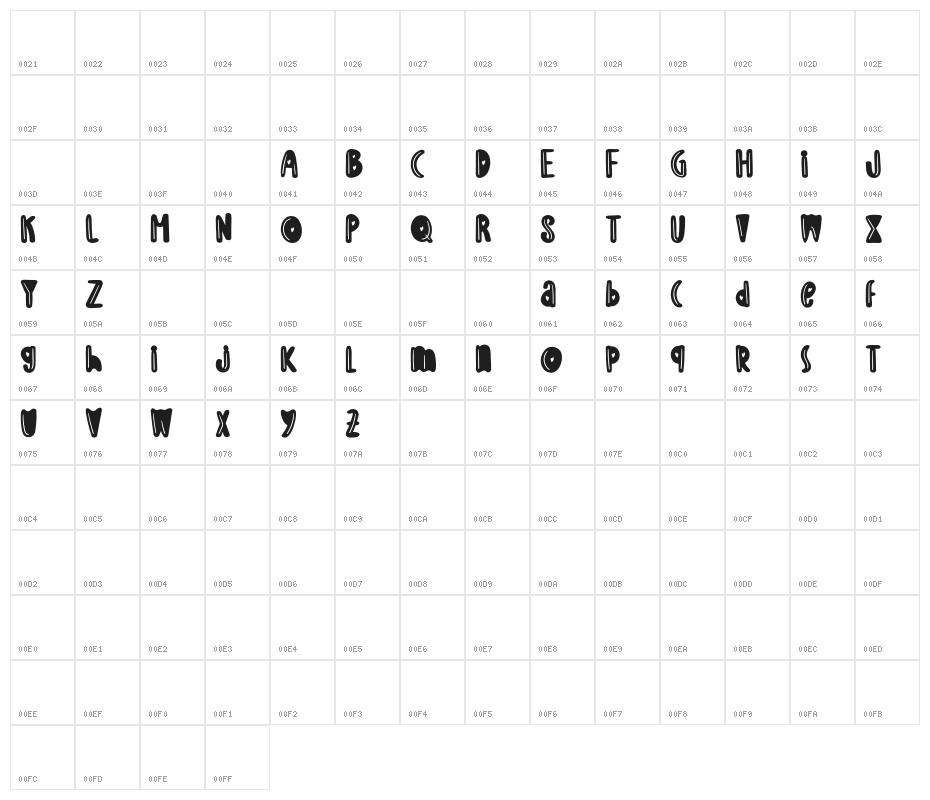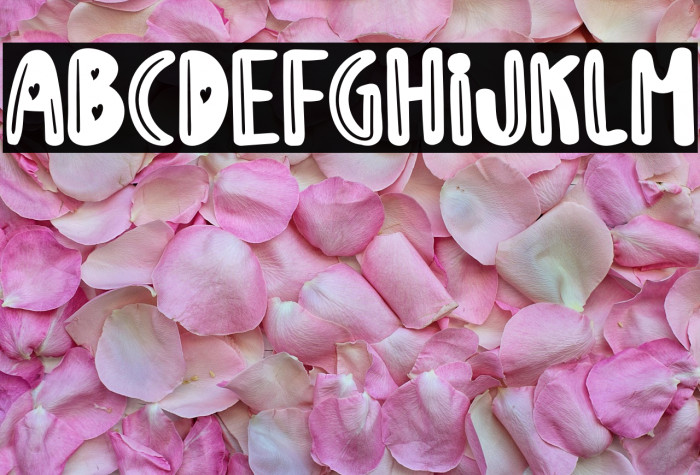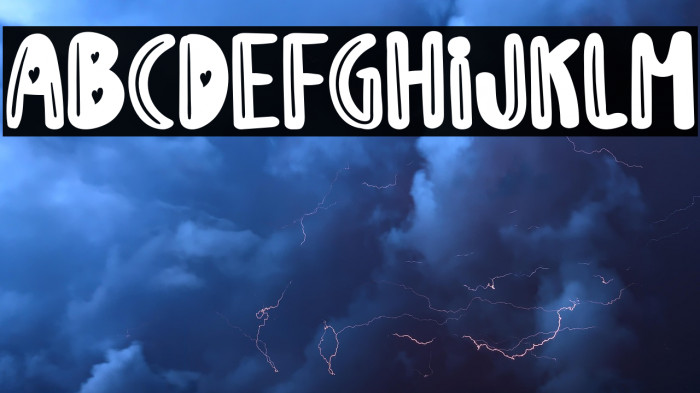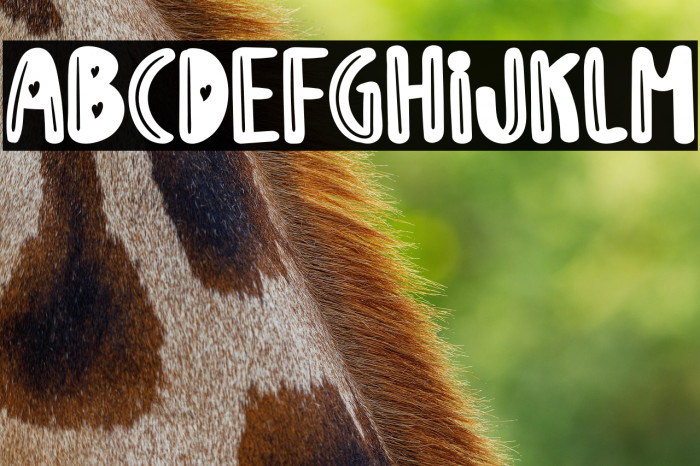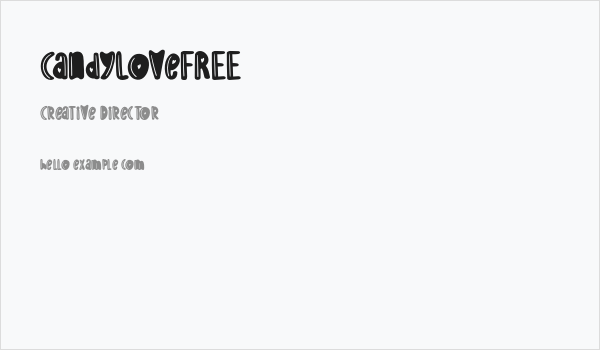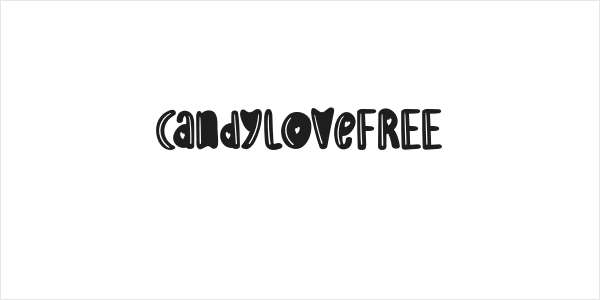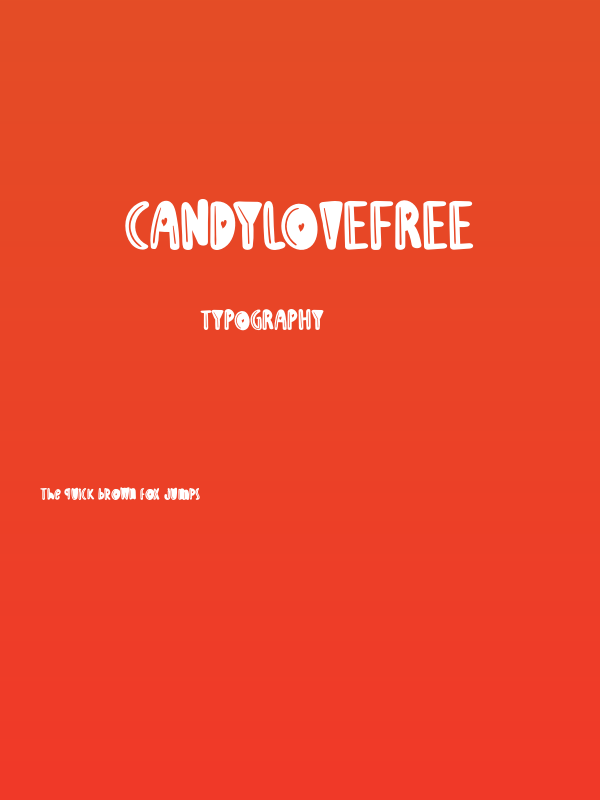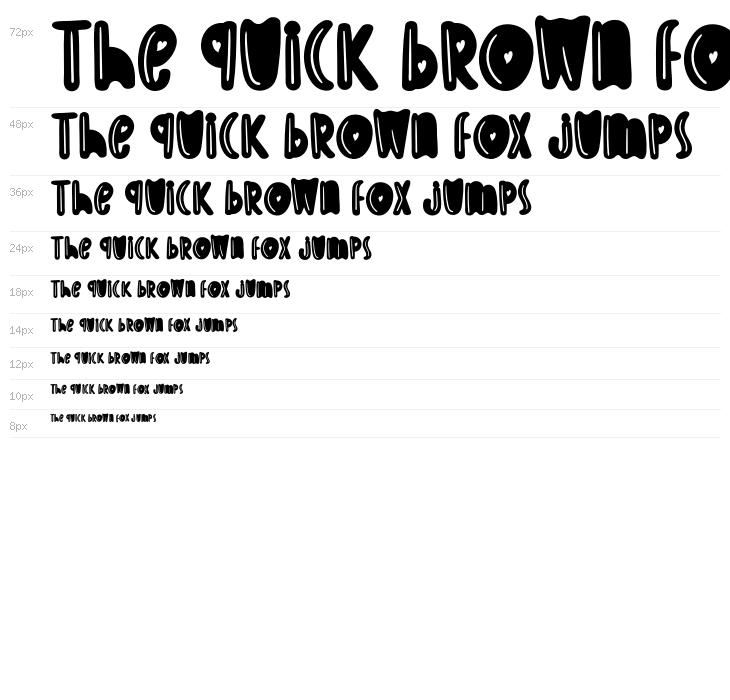
CandyLoveFREE Font
CandyLoveFREE Description
This playful and bold font features thick, rounded letters with a whimsical touch. Each character is designed with a unique flair, incorporating heart shapes and playful curves that give it a fun and lively appearance. The font has a strong presence, making it ideal for designs that require a cheerful and eye-catching style. Its boldness and decorative elements make it suitable for creative projects where a sense of joy and playfulness is desired. The font's unique character shapes and bold strokes ensure it stands out in any design context.
| Proposed Projects | Perfect for children's book covers, playful branding, party invitations, and greeting cards. |